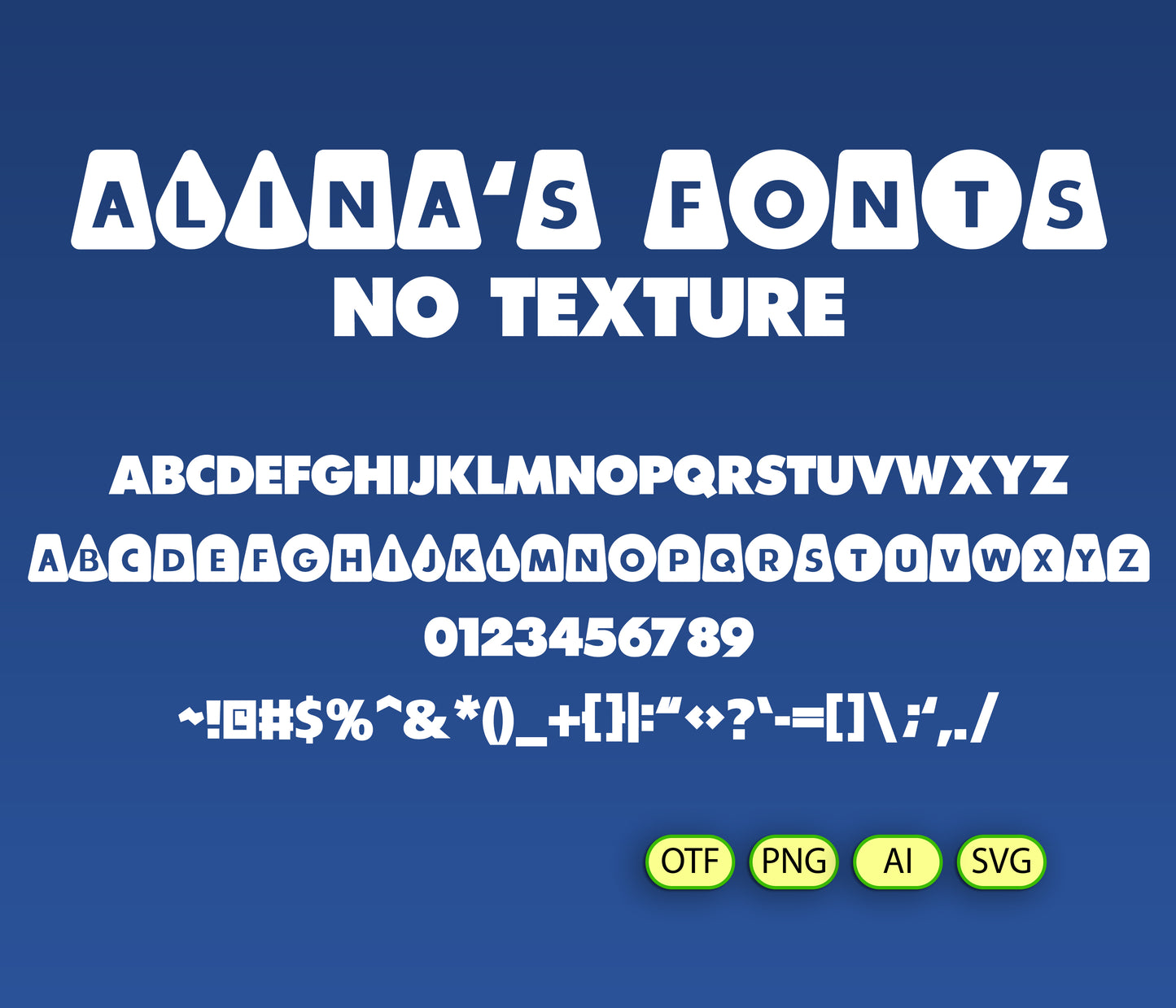
Modular Chromatic Font Smooth Version
Step into the eye-catching world of structured hues with our Modular Chromatic Font Smooth Version, capturing the essence of precision styling and spectrum-based artistry. Perfect for visual artists, celebration coordinators, digital producers, and design enthusiasts, this font brings the compelling, fresh spirit of angular clarity to your projects. Create memorable invitations, branded items, or online content with the powerful presence of organized pigment arrangements.
Bold Typography for Fresh Design & Innovative Projects
Our Modular Chromatic Font Smooth Version features commanding, stylized letterforms with polished, plain finishes reflecting the world of trending aesthetics and luminous shade combinations.
- Event Promotions: Create memorable invitations, displays, and promotional materials for trendy festivities, creative seminars, and social events that capture the spirit of commanding visual communication
- Merchandise Design: Perfect for wearables, decorative prints, removable labels, and novelties that showcase the commanding aesthetic of structured spectrum themes
- Digital Media: Enhance online platforms, publishing channels, and digital networks with luminous title treatments and imagery that express the excitement of polished contemporary style
- Creative Content: Add signature flair to digital illustrations, brand identity work, and innovative projects inspired by organized spectrum arrangements
- Personal Projects: Bring spirited style to photo albums, handcrafted items, and living space decoration inspired by the world of commanding angular compositions
Our font pays tribute to the world of polished design methodology and trending visual culture, empowering your projects with its commanding and luminous spirit. Whether crafting advertising materials, designing signature products, or adding a spectrum-based touch to personal projects, this font communicates the spirited essence of structured aesthetics. Ready to inject commanding hues into your creations? This font is your key to memorable, impactful design.